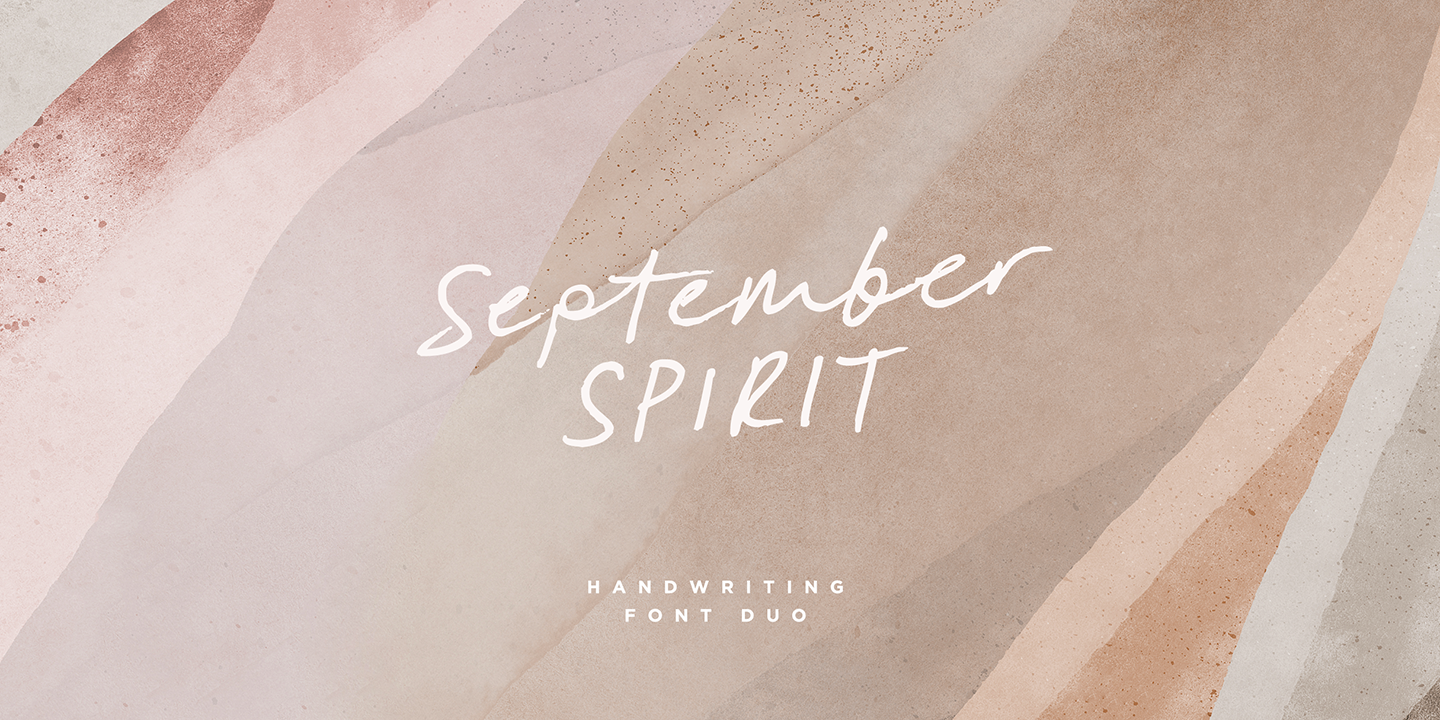
September Spirit Font is perfect for autumn-themed event materials, back-to-school campaigns, harvest festival promotions, seasonal retail graphics, cozy coffee shop branding, fall fashion collections, academic institution materials, nostalgic greeting cards, seasonal wellness retreats, and warm community gathering designs.
September Spirit Font is exciting because it captures the transformative energy and nostalgic warmth of early autumn through its graceful, season-inspired letterforms that evoke feelings of renewal and cozy anticipation while delivering messages with seasonal charm and contemplative beauty.
September Spirit Font family includes Regular, Bold, Light, Autumn, Italic, Condensed, Harvest, and Cozy variations, offering designers a complete seasonal toolkit to create warming visual communications that celebrate the transition into fall and the contemplative spirit of September's changing seasons.
September Spirit Font embodies the essence of autumn transformation and seasonal renewal, making it an invaluable resource for brands and organizations that celebrate the changing seasons and the reflective, cozy atmosphere that September brings to communities and personal experiences. This seasonally-inspired typeface brings autumnal warmth to any design project, whether you're developing seasonal retail campaigns, creating educational materials for new academic years, or designing materials for harvest celebrations. The naturally flowing character design of September Spirit Font Free Download ensures maximum seasonal appeal while maintaining excellent readability across both nostalgic print applications and digital platforms celebrating the beauty of seasonal change and autumn traditions.
Retail industry professionals consistently choose September Spirit Font for seasonal campaigns, autumn fashion collections, and back-to-school promotions because of its ability to communicate warmth, nostalgia, and connection to the natural rhythms of seasonal change. The font's contemplative appearance makes it particularly effective for targeting families and creating brand experiences that celebrate new beginnings and seasonal traditions.
September Spirit Font excels in educational and hospitality environments where seasonal atmosphere and community warmth are essential brand elements. Schools, seasonal restaurants, and community centers rely on this font to create materials that reflect the welcoming spirit of autumn and the anticipation of cozy gatherings.
The wellness and lifestyle sectors have embraced September Spirit Font for seasonal retreats, autumn-themed products, and contemplative wellness programs. Its warming visual character helps organizations create communications that celebrate seasonal mindfulness and the reflective qualities of autumn, appealing to individuals seeking seasonal connection and meaningful transitions into the contemplative months ahead.